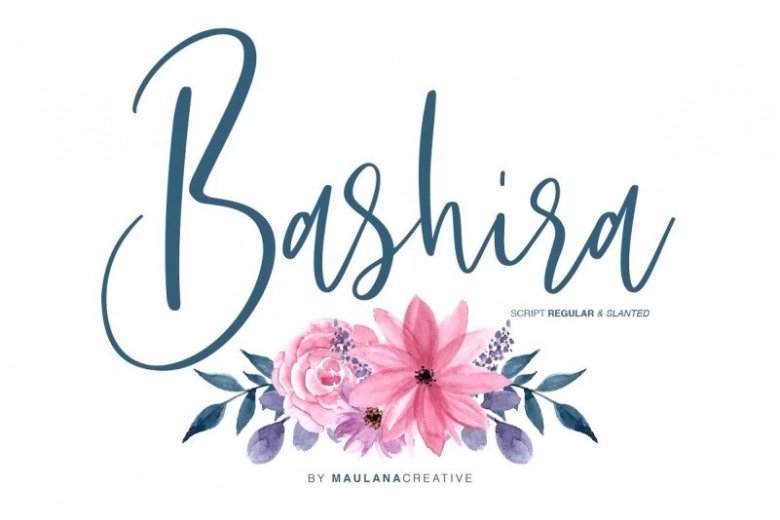
Bashira Handwritten Font
Bashira Font is a strikingly versatile and charming calligraphy script font! I know you have been waiting for this 🙂 And new modern calligraphy font is here. It’s an created by Maulana Creative. Give your designs an authentic handcrafted feel. “Bashira Brush Script” is perfectly suited to signature, stationery, logo, typography quotes, magazine or book cover, website header, clothing, branding, packaging design and more. Included Ligatures.